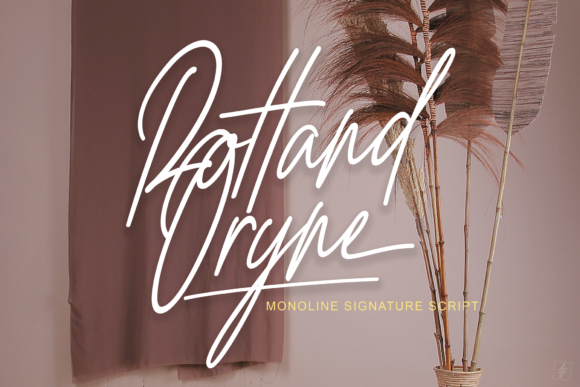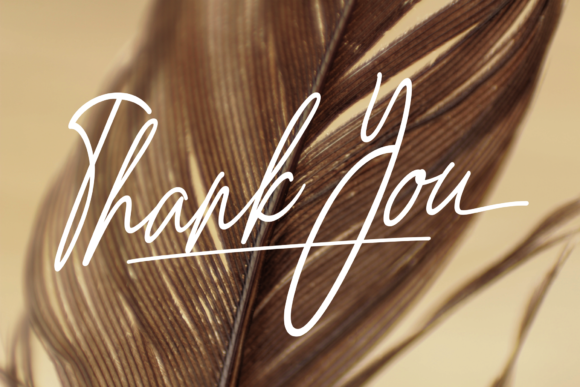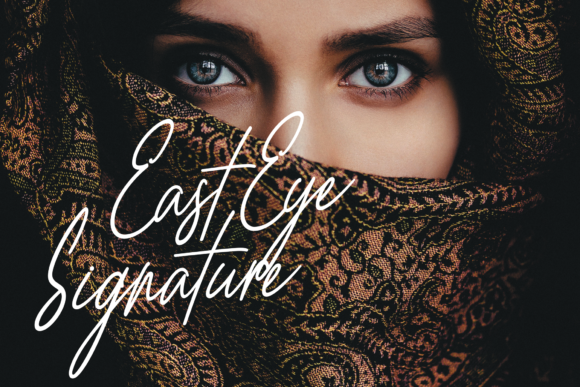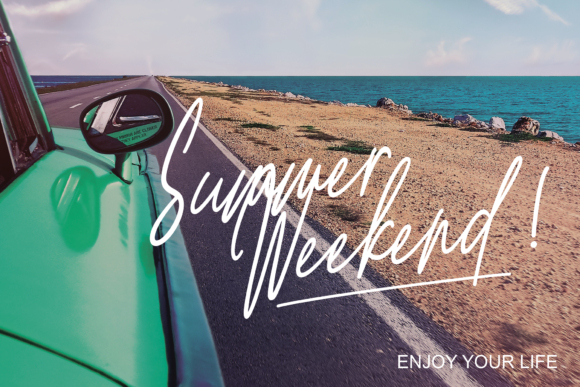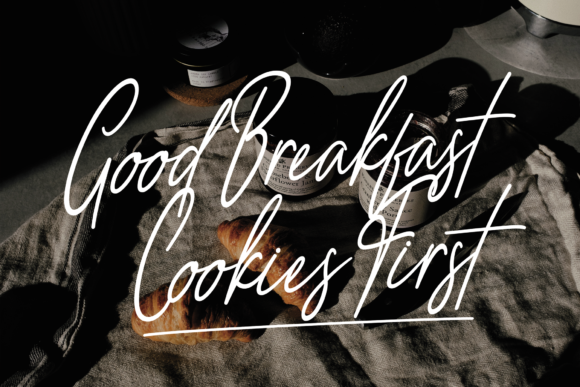
Rottand Oryne Font
Rottand Oryne is an amazing signature script font. It is the best choice for creating eye catching logos, branding and quotes. Every letter has a unique and beautiful touch, which will make your design come alive!